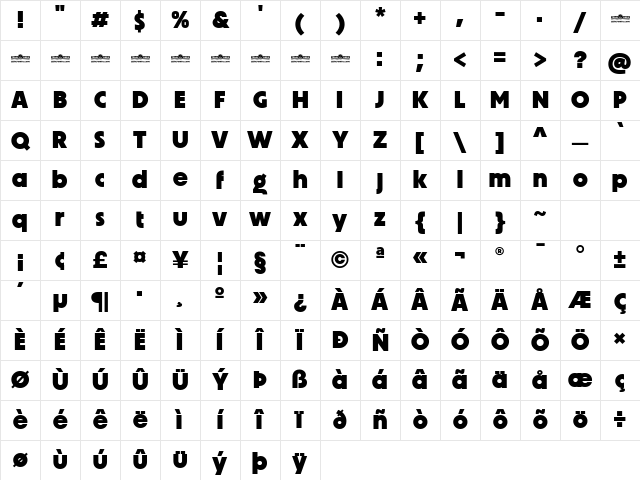
Unigeo64 Trial Extrabold Regular
Foundry: Zetafonts
Designer: Cosimo Lorenzo Pancini, Francesco Canovaro
Design Context for Unigeo64 Trial Extrabold
Unigeo64 Trial Extrabold is a composed and adaptable typeface that performs quietly and consistently across a wide range of design contexts. Its bold stroke weight gives it real presence on the page.